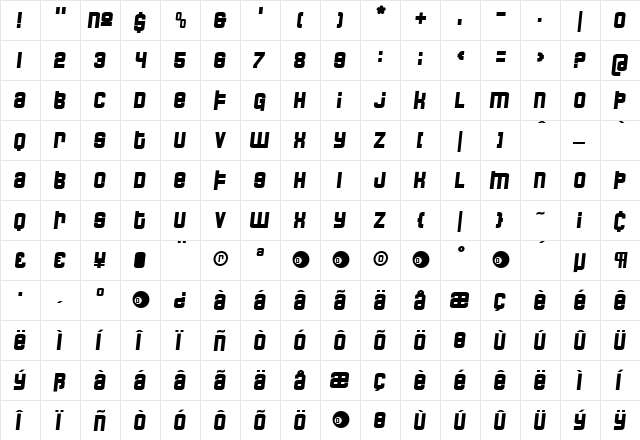
DreamboatBigTilt Medium Font Preview
DreamboatBigTilt Medium
Design Context for DreamboatBigTilt Typeface
DreamboatBigTilt offers clean, dependable letterforms without strong stylistic allegiance, making it a practical choice for designers who need flexibility.